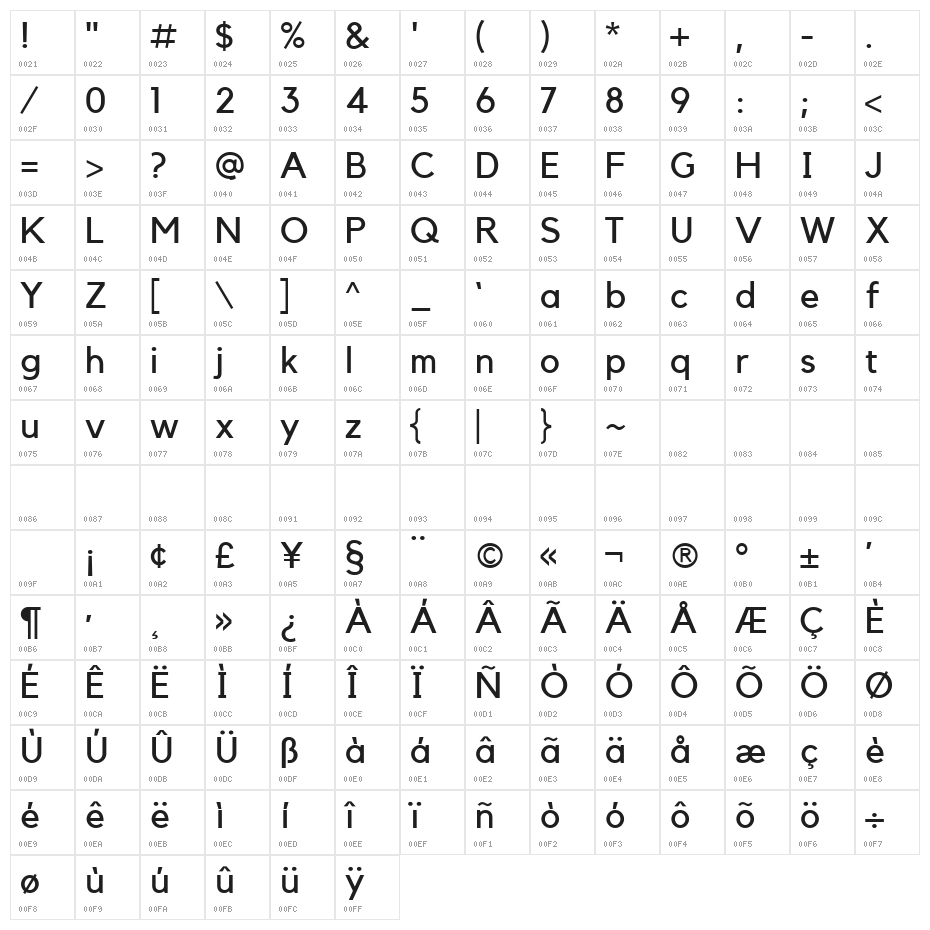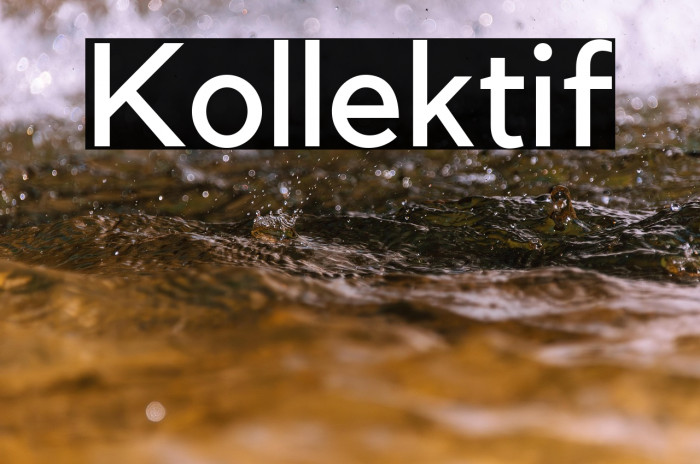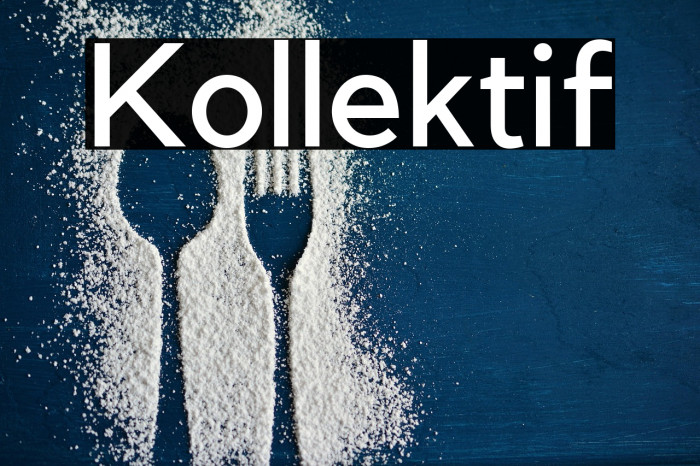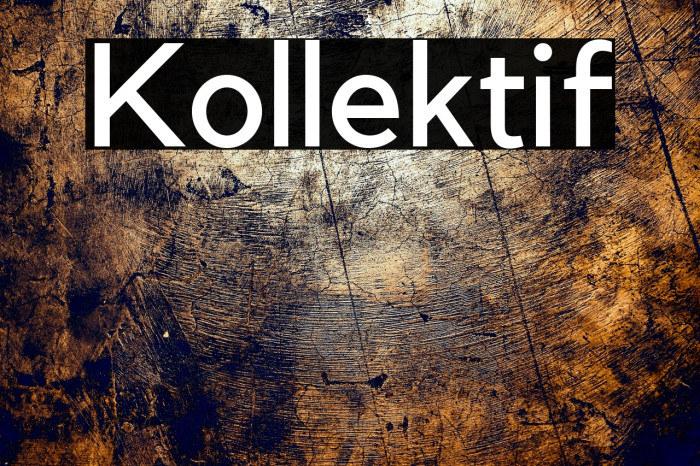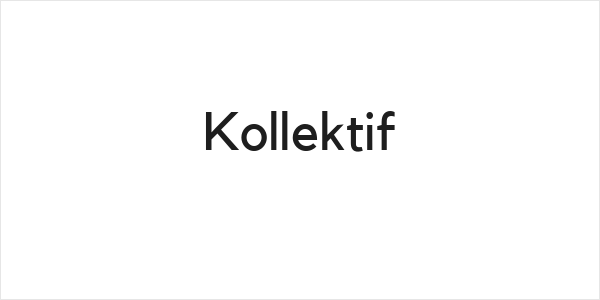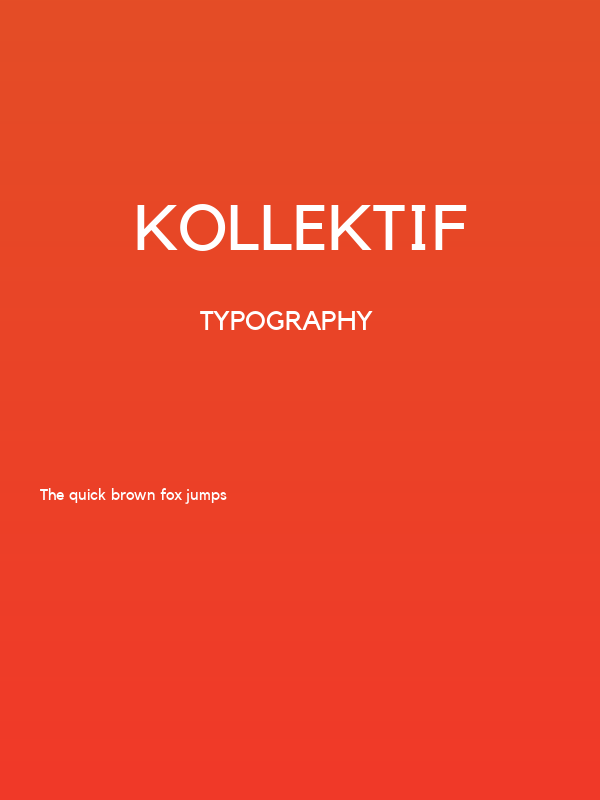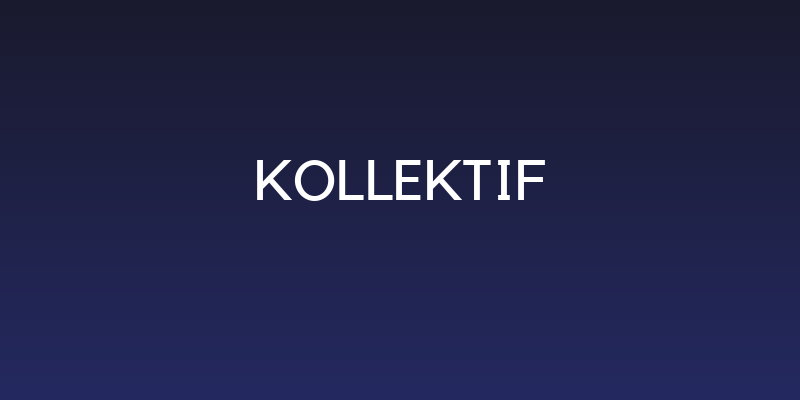
This typeface features a clean and modern sans-serif design, characterized by its geometric shapes and balanced proportions. The letters are crafted with a uniform stroke width, providing a harmonious and professional appearance. The uppercase and lowercase letters are well-defined, with a slight roundness that adds a touch of friendliness. The numerals are clear and easily distinguishable, making them suitable for various applications. Special characters are included, maintaining the font's consistent style. Its simplicity and clarity make it versatile for both digital and print media.
Proposed ProjectsIdeal for branding, web design, advertising, and editorial projects where clarity and modernity are essential.